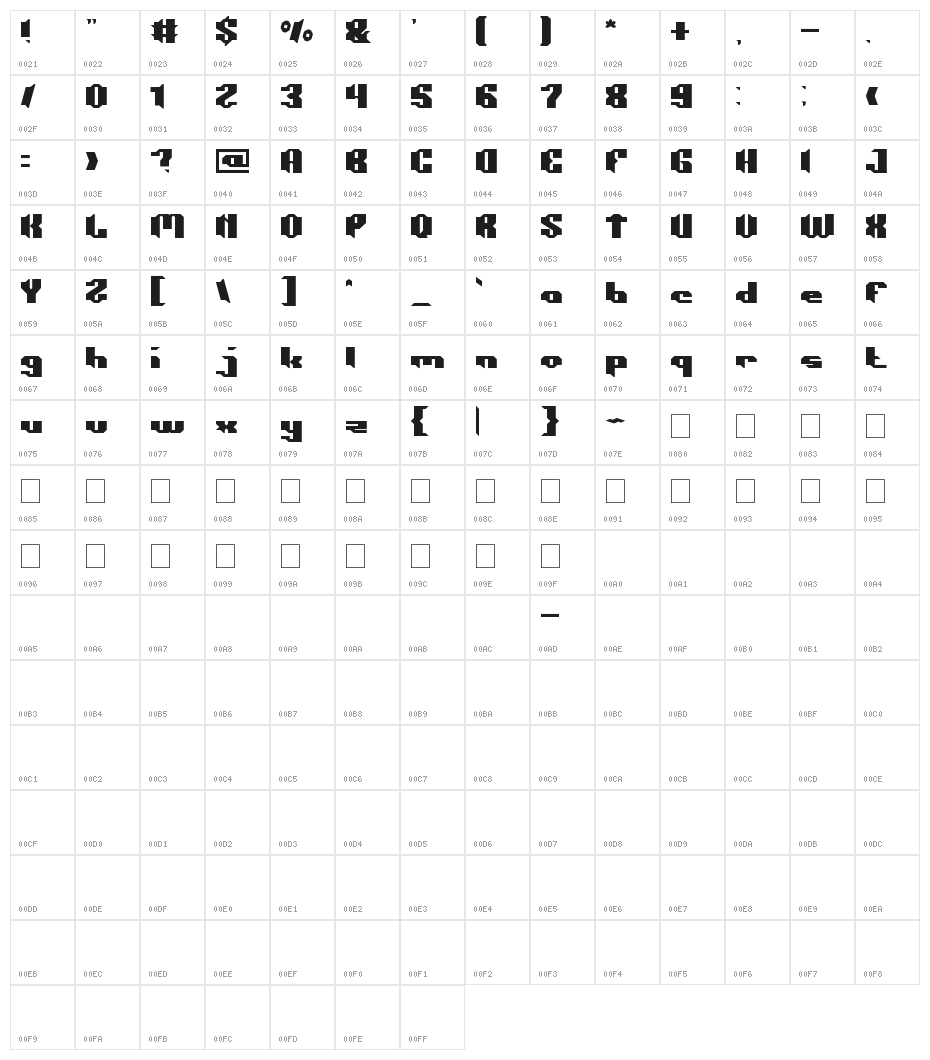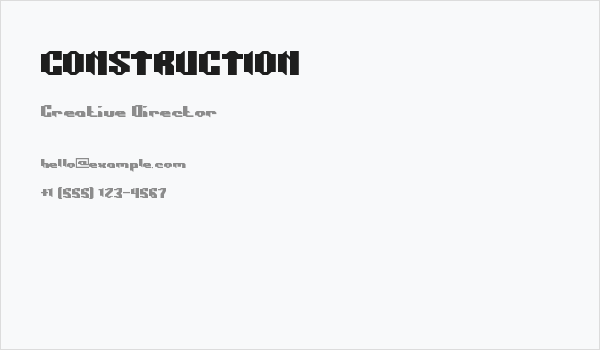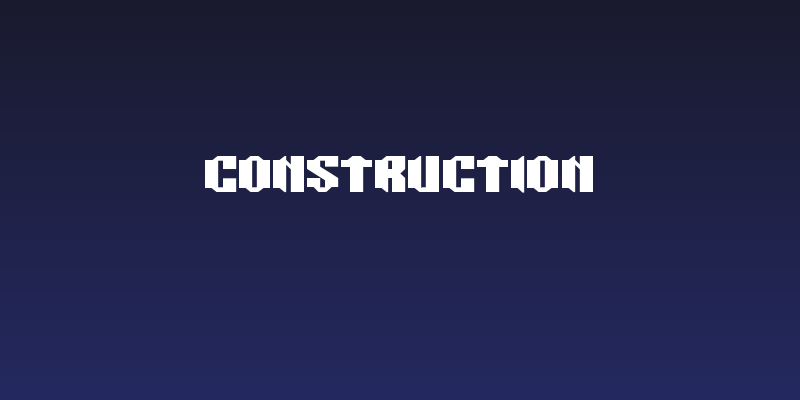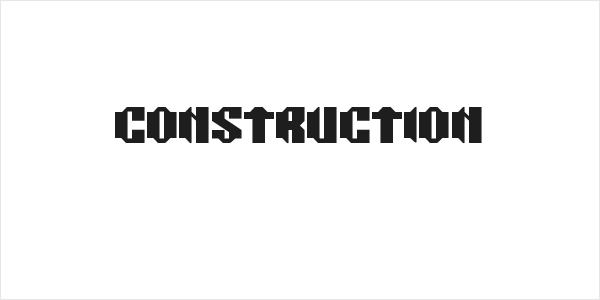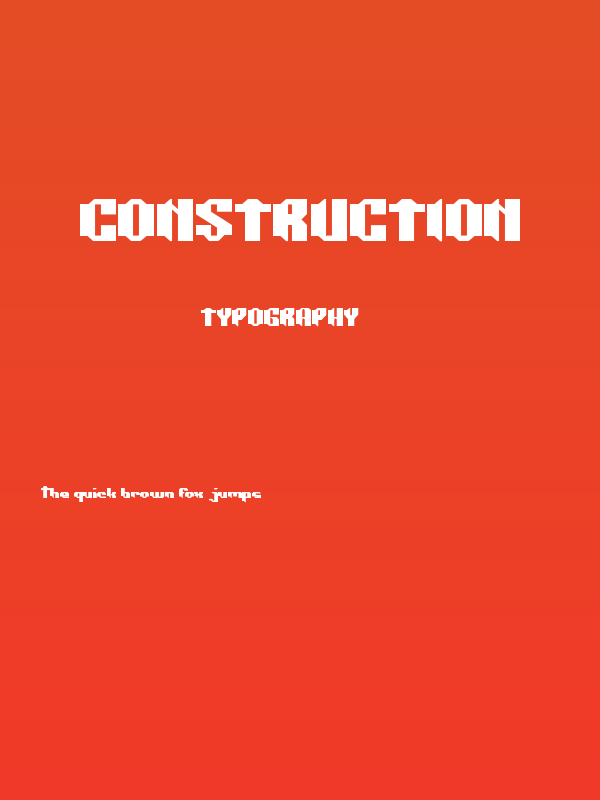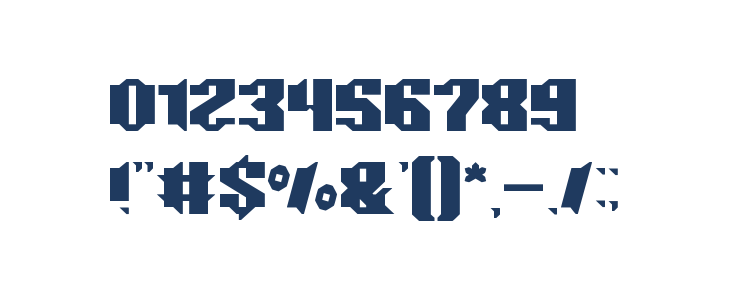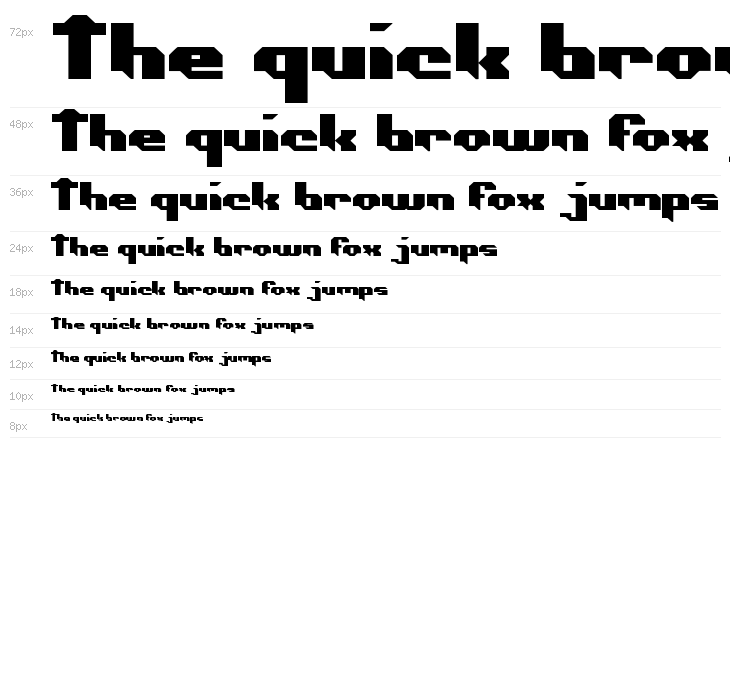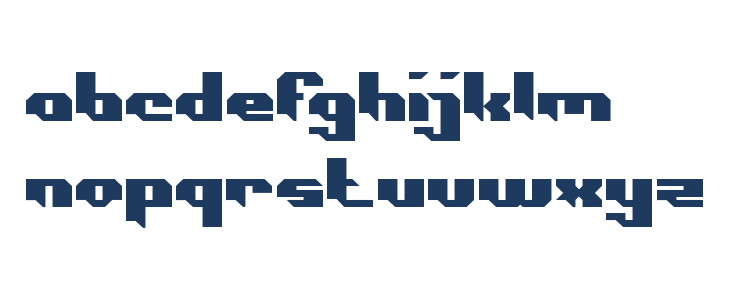
CONSTRUCTION Font
CONSTRUCTION Description
This font features a bold and geometric design with strong, angular lines and a blocky appearance. The characters are constructed with a uniform thickness, giving them a sturdy and robust look. The uppercase and lowercase letters maintain a consistent style, with sharp edges and a modern, industrial feel. The numerals and special characters follow the same design principles, ensuring a cohesive appearance across all glyphs. This font is highly legible and makes a strong visual impact, suitable for projects that require a bold statement.
| Proposed Projects | Ideal for construction-themed branding, posters, signage, and any project needing a strong, impactful typeface. |